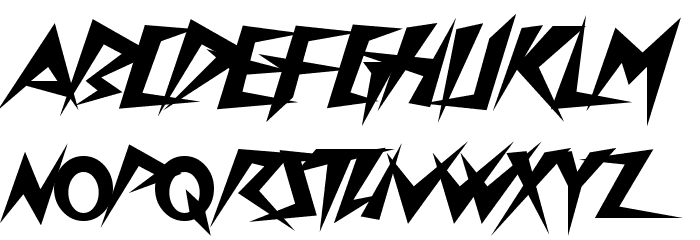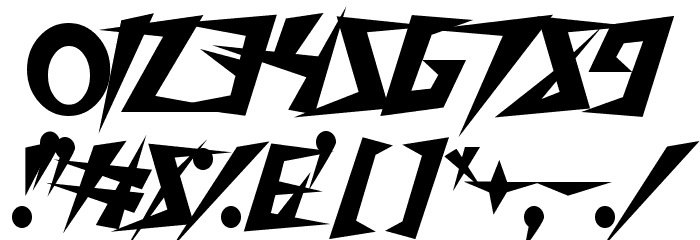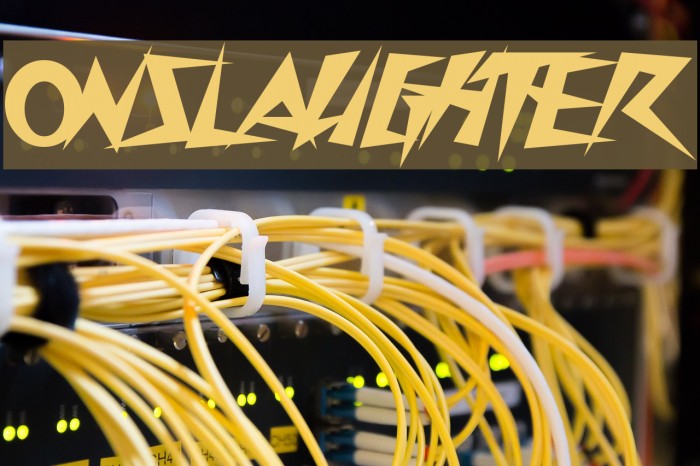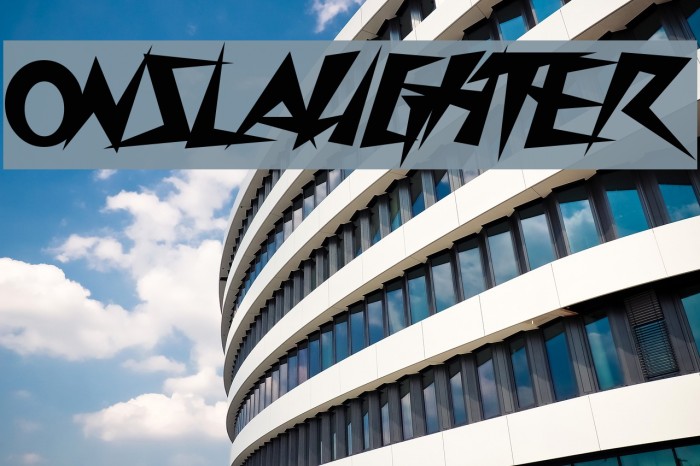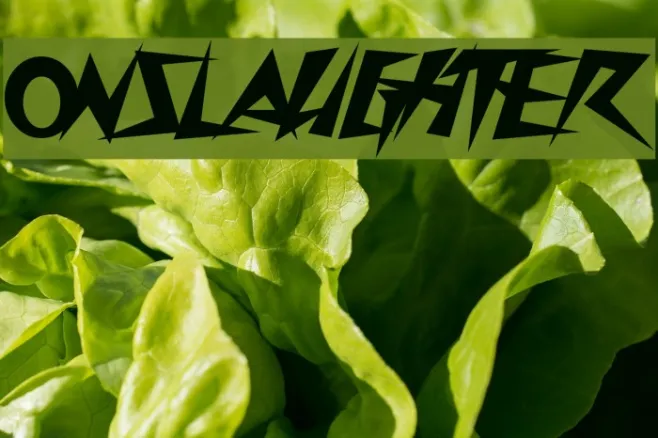
Onslaughter Font
This font features a bold, aggressive style with sharp, angular lines and a dynamic, jagged appearance. The characters are designed with a sense of movement and energy, making them stand out with their unique and edgy look. The uppercase and lowercase letters maintain a consistent design, emphasizing sharp points and dramatic angles. Numbers and special characters follow the same aesthetic, ensuring a cohesive visual experience. This font is ideal for projects that require a strong, impactful presence.
A bold, angular font with sharp, jagged edges and a dynamic style.
- Proposed Projects: Perfect for music album covers, video game titles, posters, and branding that requires a bold, edgy look.
- Character Spacing: Tight
- Overall Style: Modern, Edgy